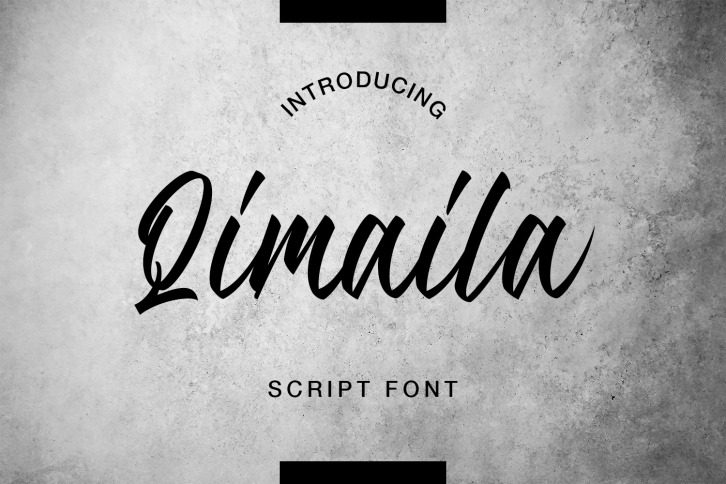
Qimaila - script romantic font is a font created with brush pen strokes that carry romantic and elegant themes
Qimaila will be perfect for flyer, brochures, posters, t-shirts, book covers, packaging, invitations, business cards, quote and all designs that require soft, romantic, modern and elegant elements